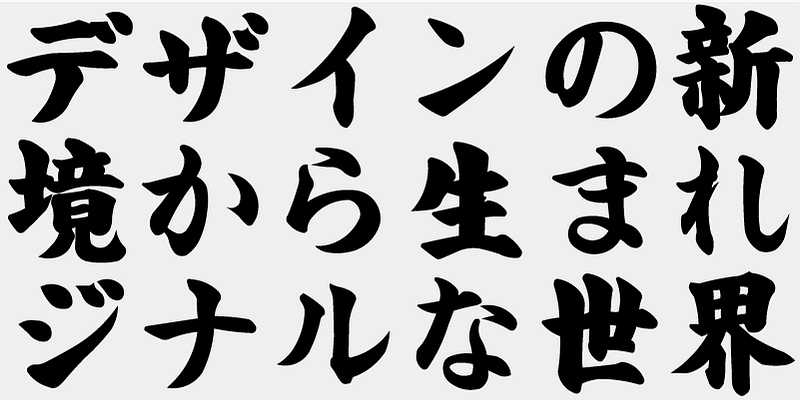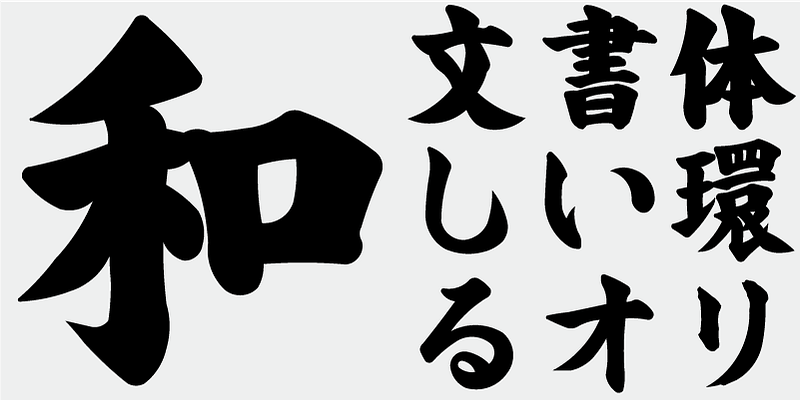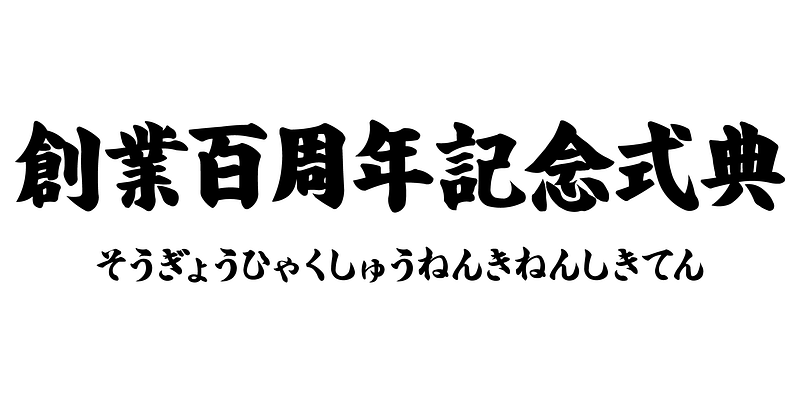
TAw-Byakko Kaisho_Ear is a brush kaisho (regular script) font, released in 1997 with the Gradeo software for making signs and displays. Originally named “GF Tate Futokaisho EB,” the font was renamed “TAw-Byakko Kaisho_Ear” with the April 2026 renewal. *Half-width characters feature designs common to the brush fonts in the TA/TAw series.
These fonts were first released in 1997, bundled with the Gradeo software for making signs and displays.